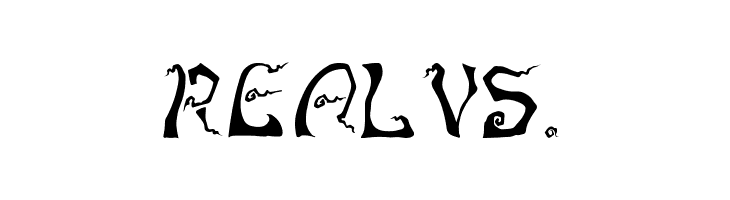
A bold, futuristic font with sharp, angular lines and geometric shapes.
A tall, elegant serif font with high contrast and refined style.
A festive, cursive script font with bold, flowing strokes and elegant connections.
A playful, whimsical handwritten font with lively, flowing strokes.
A dynamic, brush-style font with expressive, fluid strokes.
A fluid, cursive font with a casual elegance and seamless flow.
A lively, cursive handwritten font with fluid, connected strokes.
A bold, angular font with slanted lines conveying speed and movement.
A dynamic, italicized font with sharp, angular cuts, conveying speed and energy.
A futuristic and geometric font with bold, angular letterforms.
A dynamic and energetic script font with fluid, swift strokes.
A vintage, typewriter-style font with a textured, distressed appearance.
A fluid and dynamic handwritten font with elegant, slanted letterforms.
A dynamic, italicized cursive font with a fluid, handwritten style.
A fluid, cursive font with elegant, connected strokes and a modern calligraphic style.
A whimsical and flowing script font with elegant, elongated letterforms.
Bold, playful handwritten font.
A dynamic, flame-inspired font with sharp, jagged edges.
A playful, handwritten font with a modern, energetic style.
A playful, handwritten font with bold, irregular strokes.
A playful, bold font with rounded edges and a hand-drawn feel.
A bold, futuristic font with angular, modern design elements.
A spooky, web-themed decorative font perfect for Halloween designs.
A bold, italicized font with a futuristic, angular design.
A bold, edgy graffiti-style font with sharp, angular shapes.
A bold, angular font with spiky, geometric designs for a dynamic look.
A bold, spiky font with a dynamic and edgy appearance.
A bold, jagged, and energetic font with a modern handwritten style.
A lively, handwritten script font with bold, expressive characters.
A dynamic, cursive script font with medium contrast and elegant flow.
A dynamic and fluid script font with elegant, flowing letterforms.